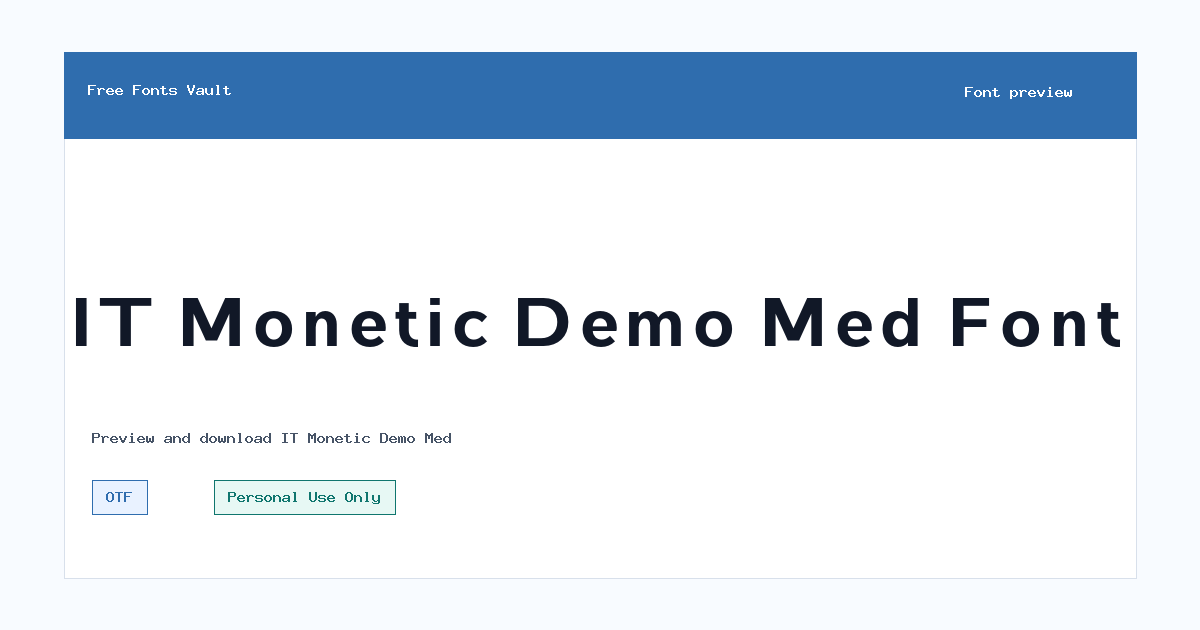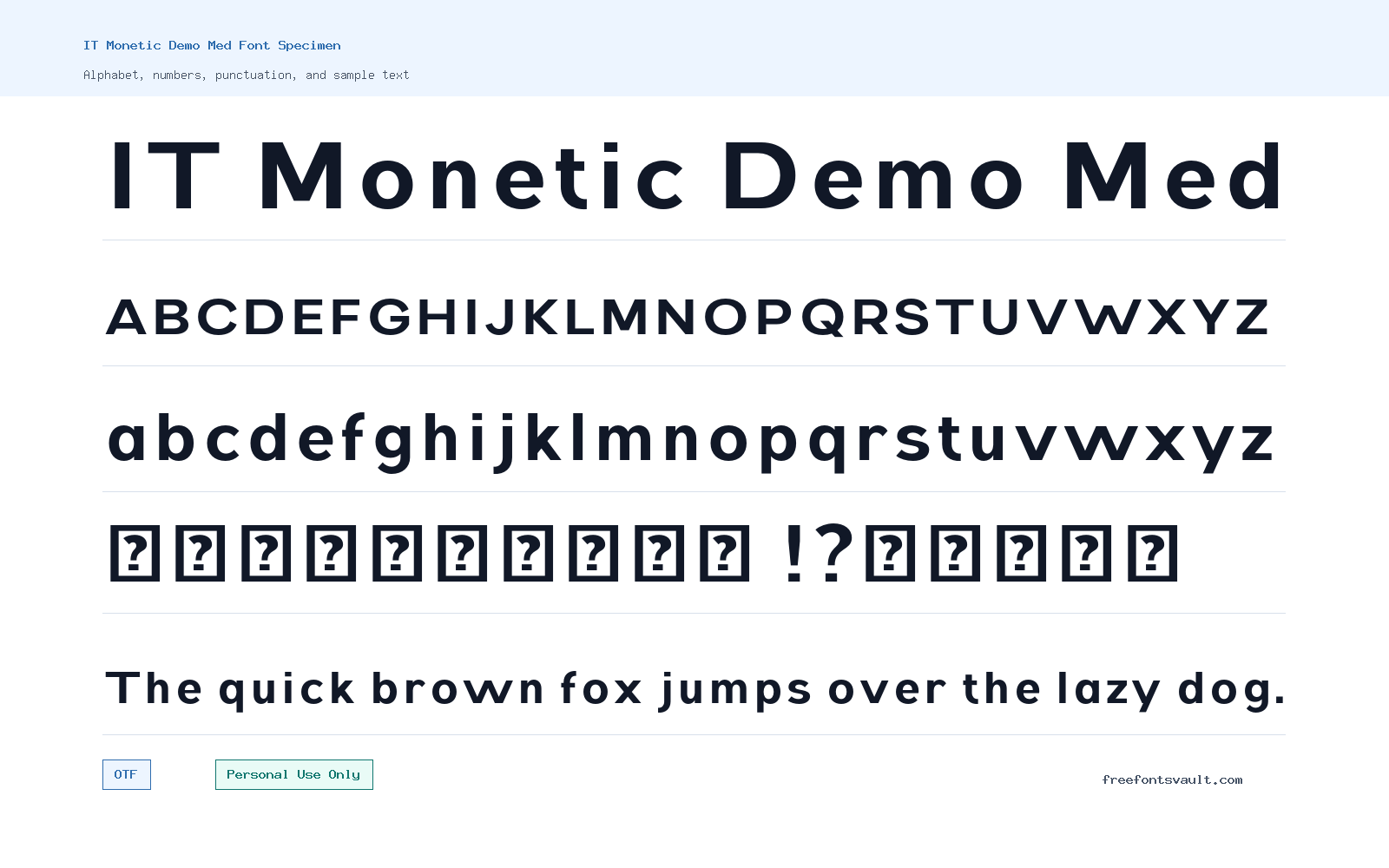
IT Monetic Demo Med
- Designer Indotype
- Foundry Indotype Foundry
IT Monetic Demo Med font.
IT Monetic Demo Med is a medium-weight style from the IT Monetic Demo sans serif family. It has a clean, modern structure that works well for testing headlines, interface mockups, posters, and personal branding concepts.
About IT Monetic Demo Med
IT Monetic Demo Med sits in the middle of the family’s weight range, giving it more presence than a light style without becoming heavy or loud. The letterforms follow a modern sans serif approach, with a neat geometric feel and enough softness to avoid looking too mechanical. That makes the Medium style a useful choice when you want clear text with a steady tone: firm enough for headings, calm enough for short blocks, and simple enough to test across different kinds of layouts.
Use this font when you want to preview a contemporary sans serif for personal design work. It can suit poster titles, presentation covers, social graphics, website mockups, UI concepts, and early logo explorations. The medium weight is especially helpful for names, short phrases, menu labels, cards, buttons, and section headings because it keeps the text readable while still looking designed. For very long paragraphs, test the spacing and size carefully first; many modern sans serifs look best when given enough line height and breathing room.
- Medium-weight sans serif style with a clean, modern appearance
- Useful for short text, headings, UI labels, posters, and personal mockups
- Part of the IT Monetic Demo family, which includes multiple weights and italic styles on font listing sources
- Personal poster titles and event-style graphics
- Website and app interface mockups
- Presentation covers and section headings
- Short branding studies and wordmark experiments
- Social media graphics for non-commercial use
- Typography tests before choosing or licensing a full font family
Try the font first with the exact words you plan to use. Check uppercase titles, mixed-case names, numbers, punctuation, button text, and small-size labels. Pair it with a quieter serif or a neutral sans serif for supporting text, and avoid combining it with another strong geometric sans unless the contrast is clear. For web mockups, test line height and letter spacing so the medium weight does not feel cramped.
What type of font is IT Monetic Demo Med?
It is a modern sans serif demo font in a medium weight.
What should I use it for?
It is best for short text such as headings, posters, UI labels, presentation covers, and personal design mockups.
Is this the full IT Monetic family?
This page focuses on the IT Monetic Demo Med style. Font listing sources show the demo family with several weights and italic styles, but this directory entry lists the Medium OTF file.